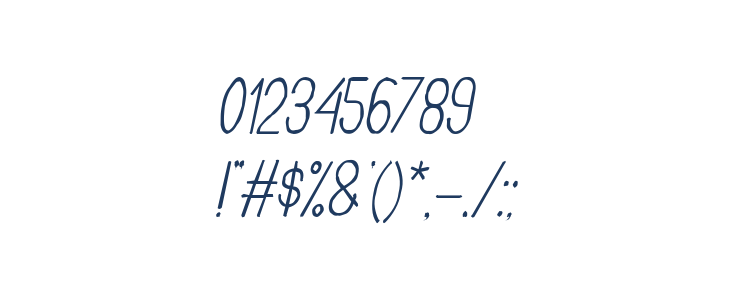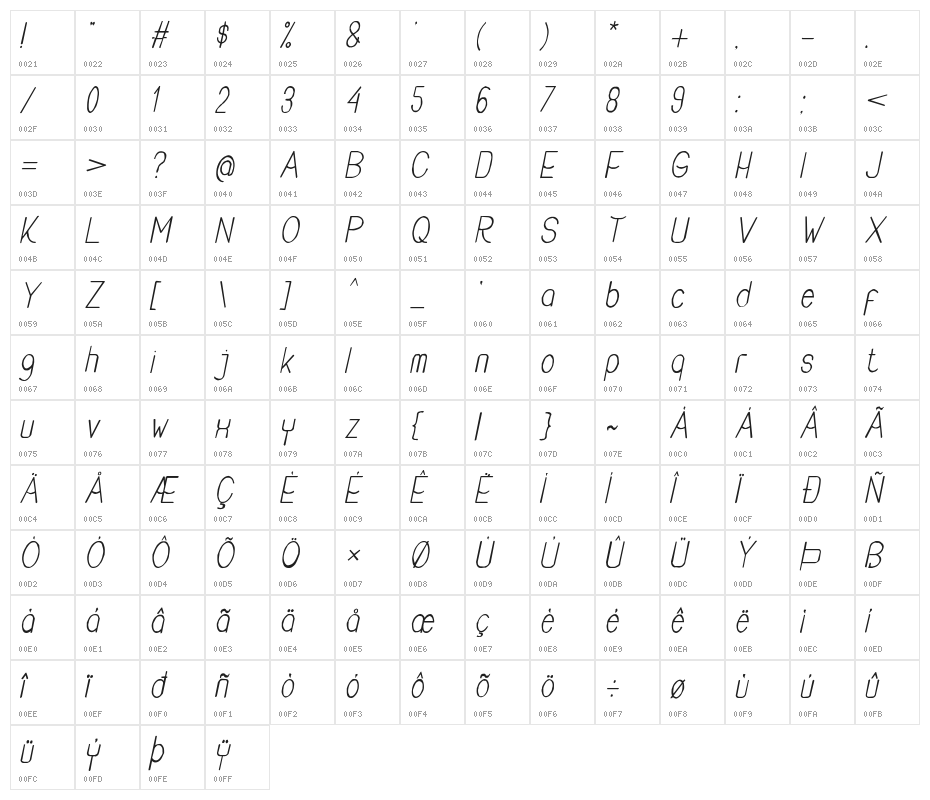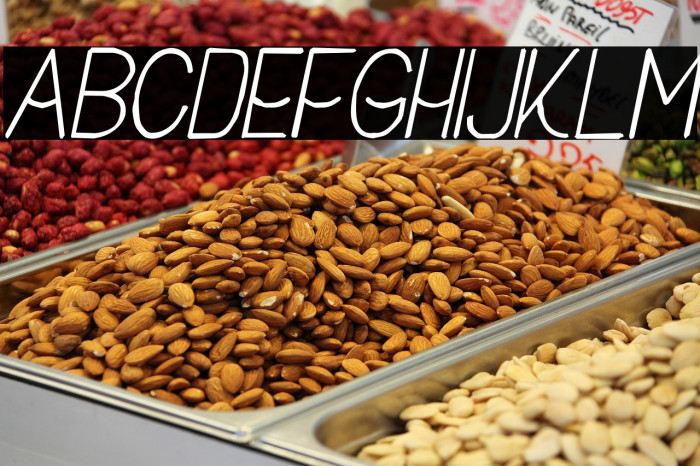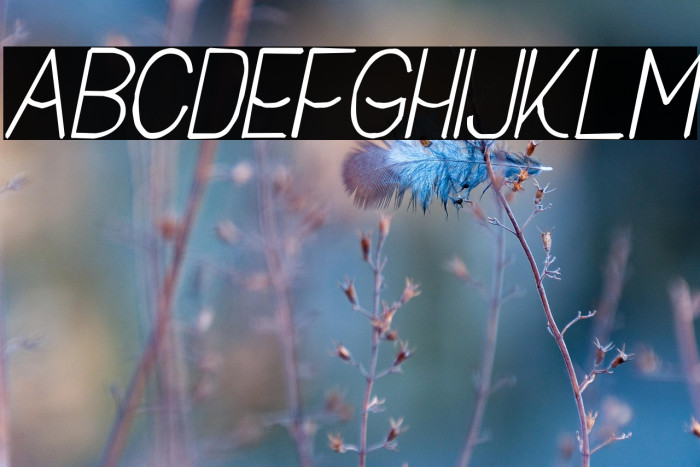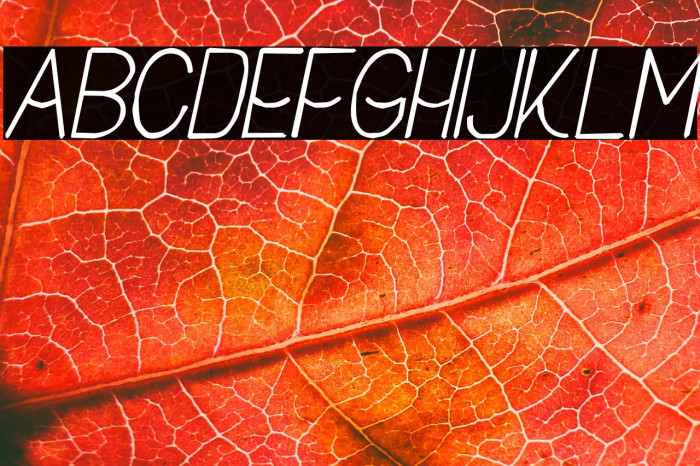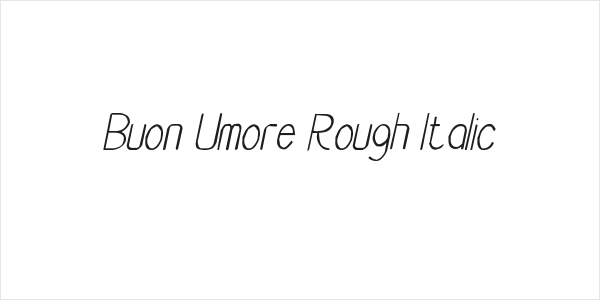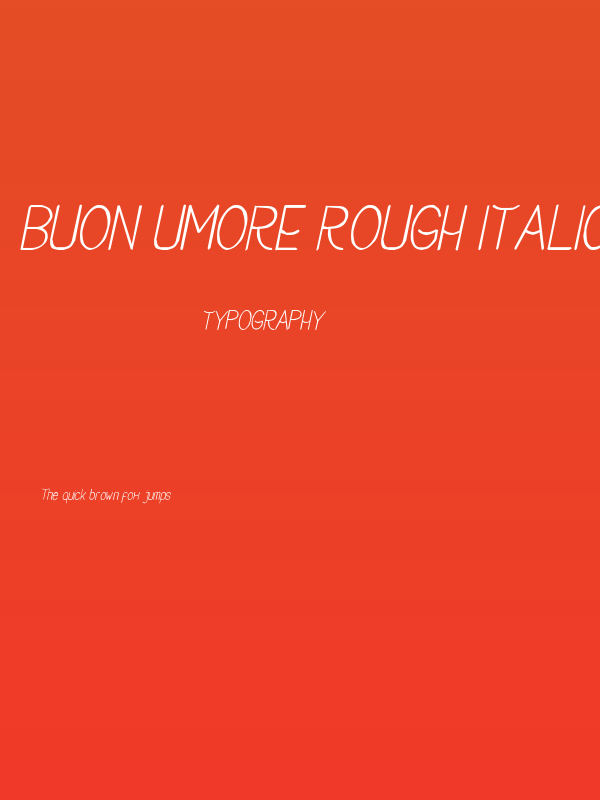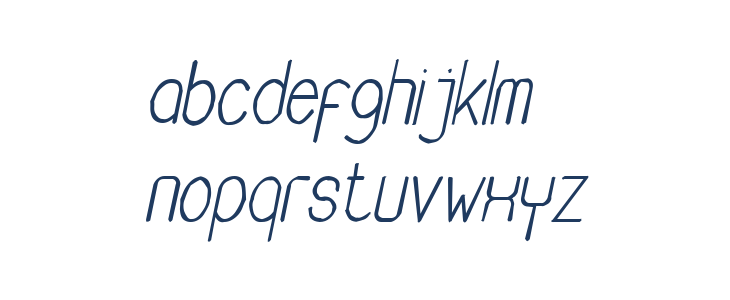
Buon Umore Rough Italic Font
Buon Umore Rough Italic Description
This font features a playful and dynamic style with a rough, hand-drawn appearance. The letters are slightly slanted, giving it an italicized look that adds to its casual and informal vibe. The strokes are uneven, contributing to its rough texture, yet they maintain a consistent flow that ensures readability. The uppercase and lowercase characters are well-proportioned, and the numerals are distinct, making it suitable for various creative applications. Special characters are included, enhancing its versatility for different design needs.
| Proposed Projects | Ideal for greeting cards, children's books, playful branding, and creative posters. |